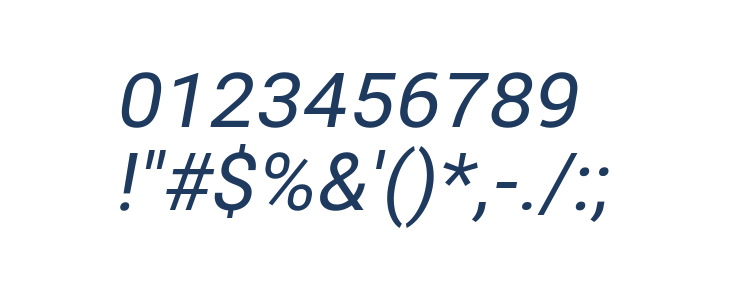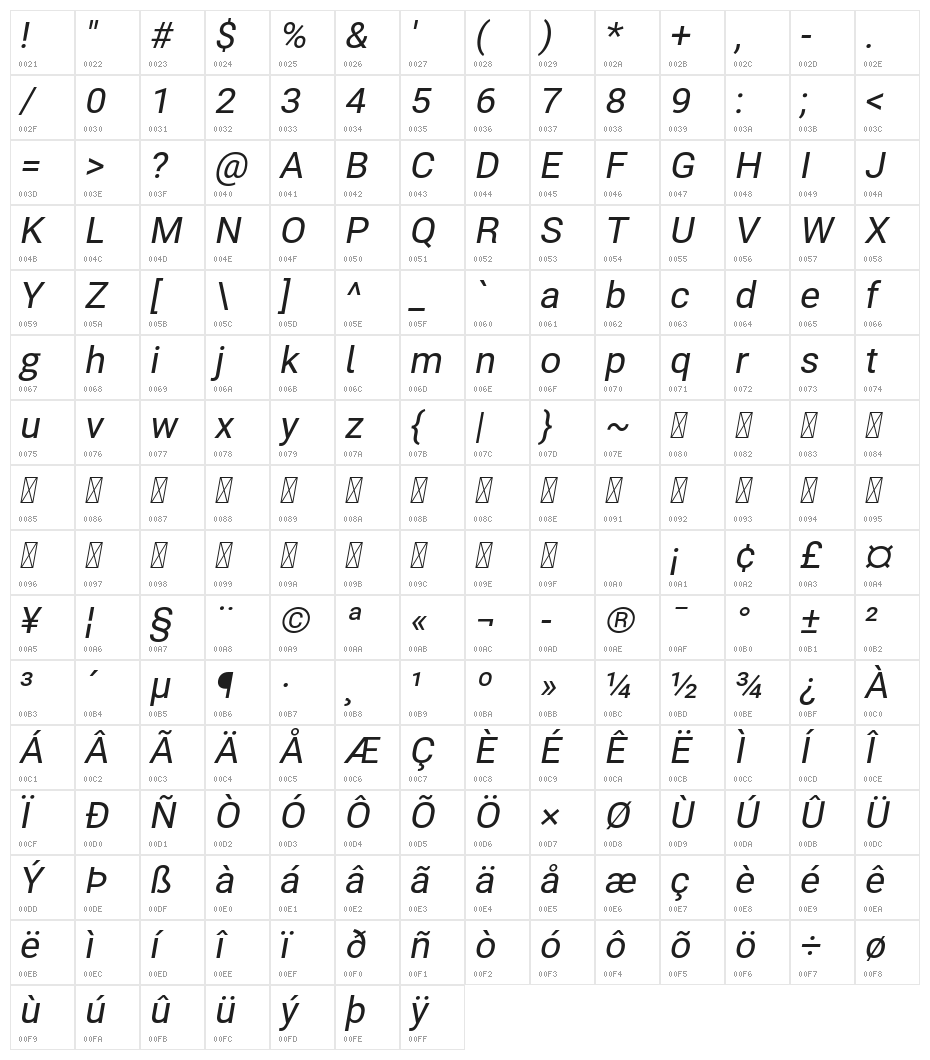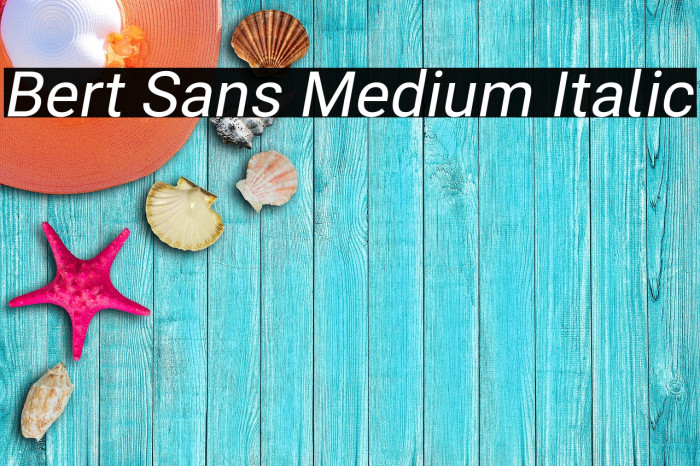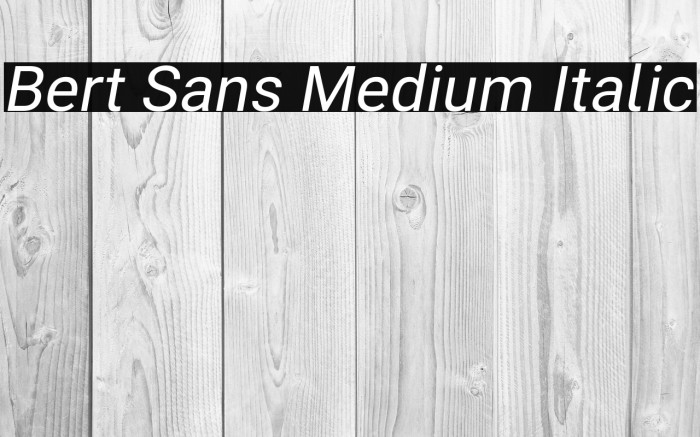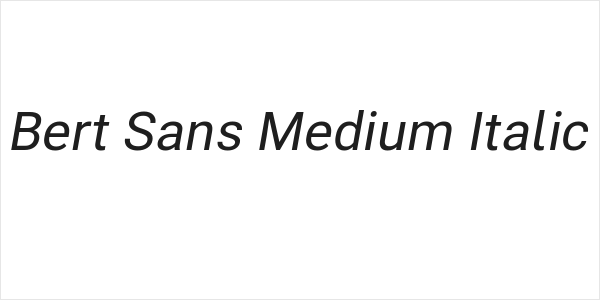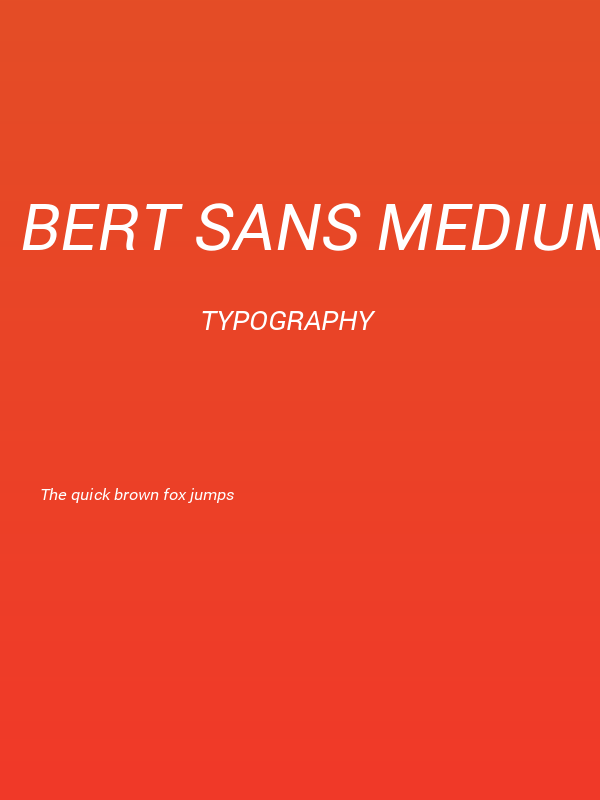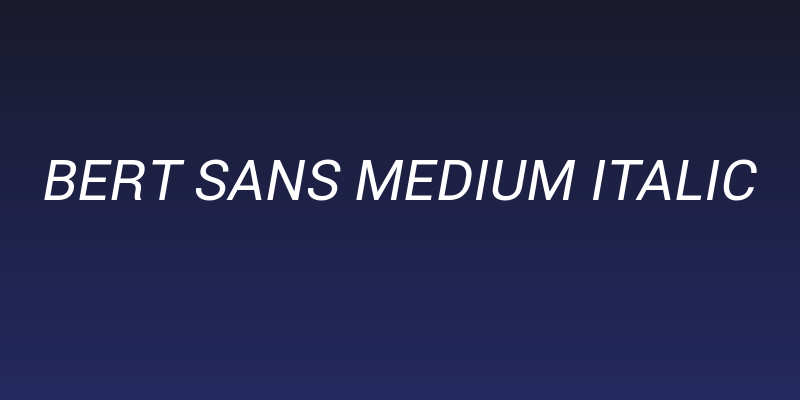
Bert Sans Medium Italic Font
Bert Sans Medium Italic Description
This font features a clean and modern sans-serif design with a medium weight and italic style. The characters are slightly slanted, giving it a dynamic and forward-moving appearance. The strokes are consistent in thickness, providing a uniform look across all characters. The uppercase letters are bold and assertive, while the lowercase letters maintain a smooth and approachable feel. Numbers are clear and easily distinguishable, making them suitable for various applications. Special characters are well-defined, ensuring versatility in usage.
| Proposed Projects | Ideal for modern branding, digital interfaces, and editorial design where a sleek and contemporary look is desired. |